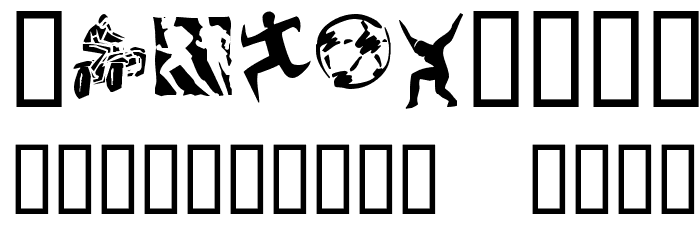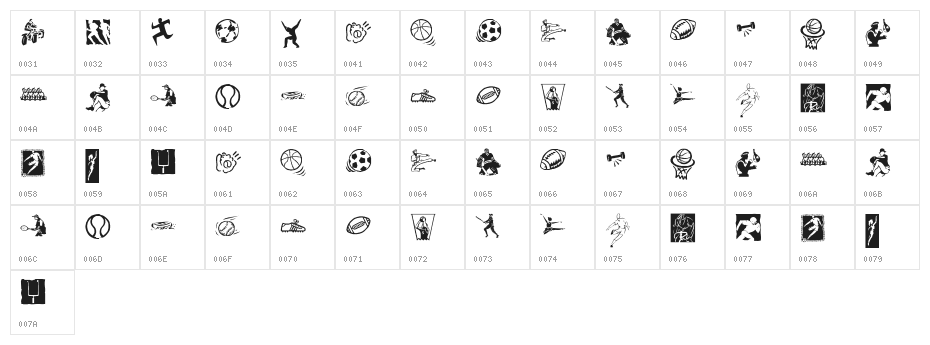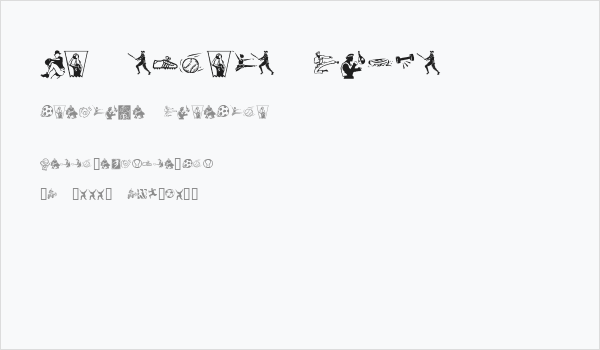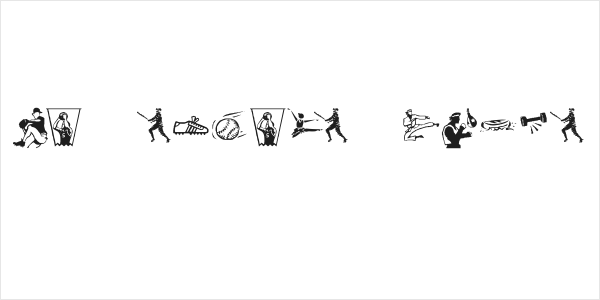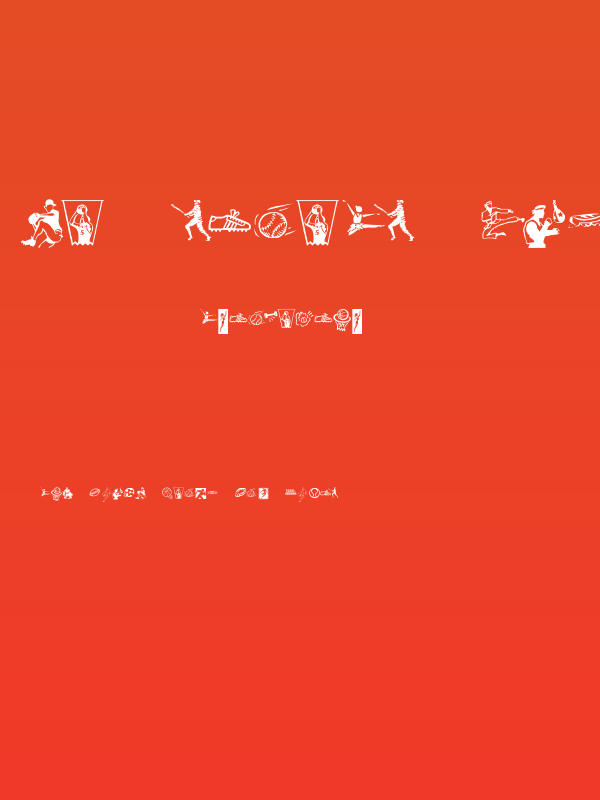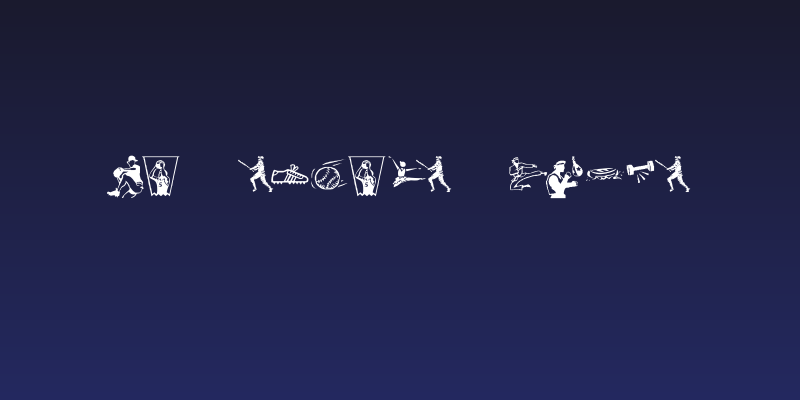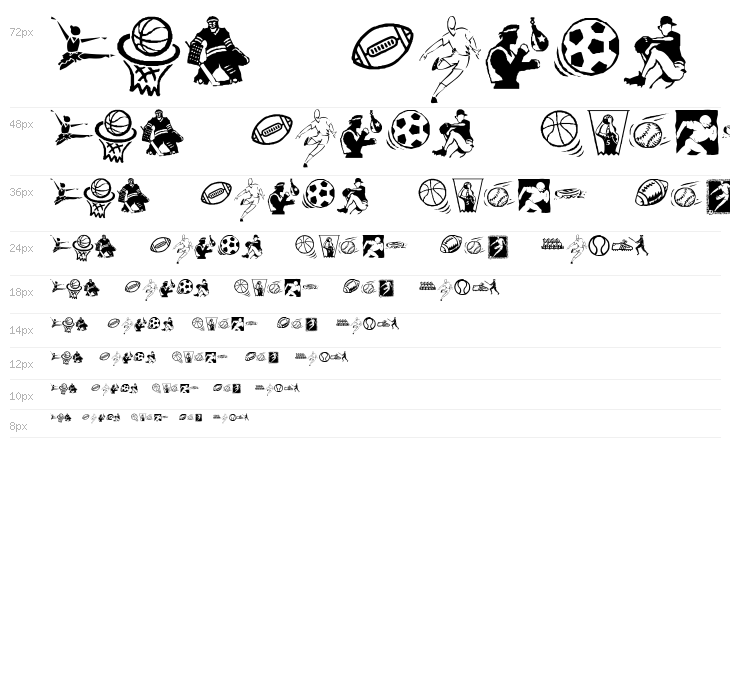
KR Sports Dings Font
KR Sports Dings Description
This is a decorative font featuring a variety of sports-themed icons. Each character is represented by a unique illustration depicting different sports activities and equipment, such as basketball, soccer, football, and more. The icons are bold and dynamic, capturing the energy and movement associated with sports. The style is playful and engaging, making it suitable for projects that aim to convey excitement and action. The illustrations are detailed yet simple enough to be easily recognizable, ensuring clarity even at smaller sizes.
| Use Case | Logos, Posters, Merchandise |
| Proposed Projects | Ideal for sports event posters, team merchandise, sports blogs, and educational materials related to physical education. |